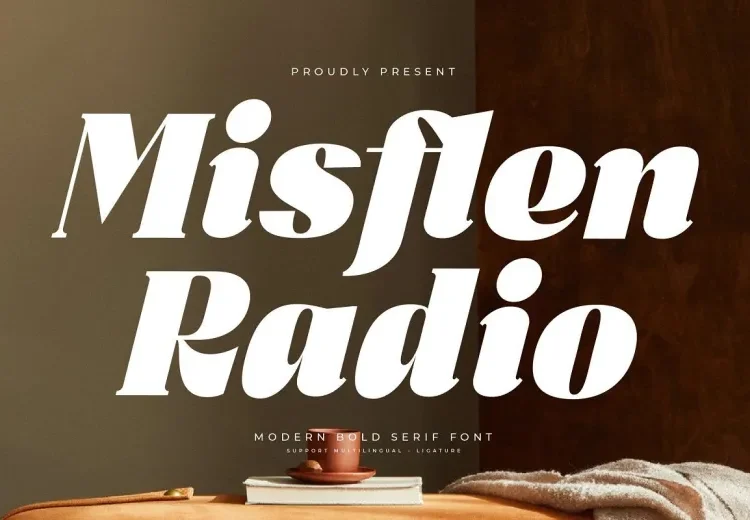
Misflen Radio Font
Misflen Radio is a sophisticated and contemporary serif font that commands attention with its bold, confident design. Characterized by clean lines and sharp corners, this typeface is perfect for creating a strong visual impact in a variety of design projects. Whether you’re working on branding campaigns, headlines, or editorial layouts, Misflen Radio delivers a powerful statement with its modern elegance.
This font is particularly effective in projects that require a bold and stylish approach, making it an excellent choice for logos, advertising materials, magazine covers, and more. Its distinct design ensures that your message is conveyed with clarity and authority, all while maintaining a sleek, professional appearance.